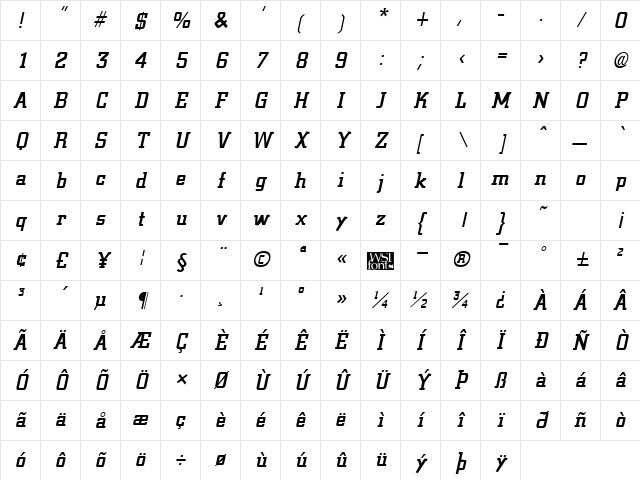
Civic Bold Italic
Design Context for Civic
Civic is a composed and adaptable typeface that performs quietly and consistently across a wide range of design contexts. The slanted form adds forward momentum and visual energy. Its bold stroke weight gives it real presence on the page.